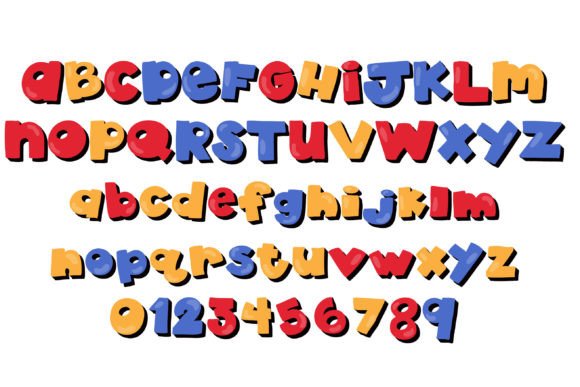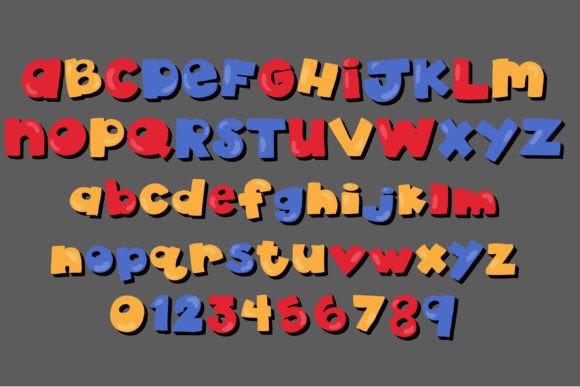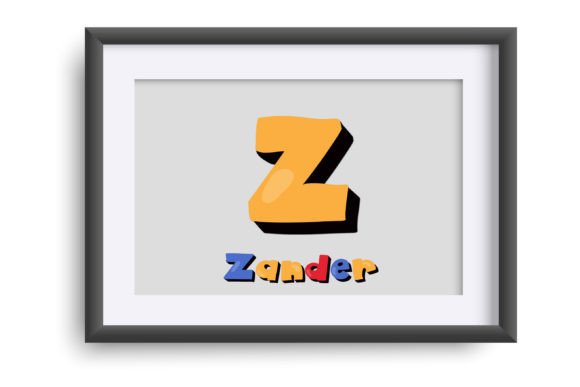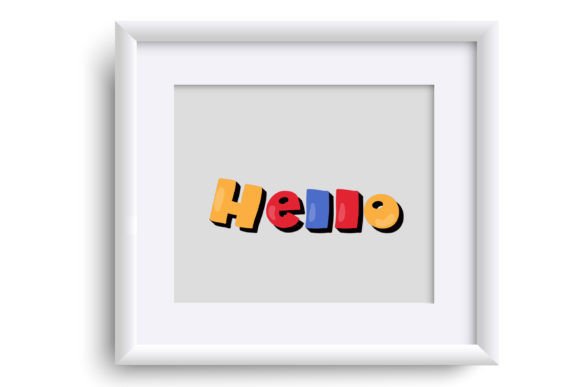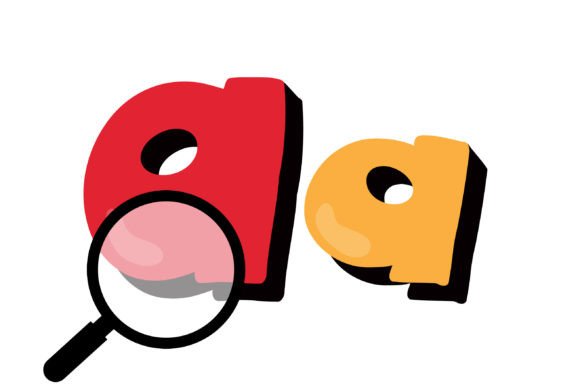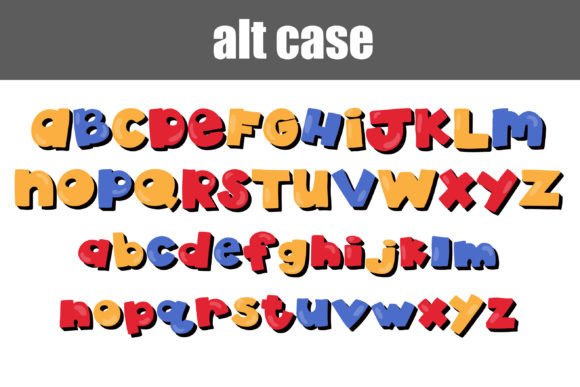
Introducing Bug Giggles Font: A Vibrant and Playful Addition to Your Design Arsenal
Are you tired of using the same old fonts in your designs? Look no further than the Bug Giggles Font, a full-color font that is sure to add a touch of personality to your projects. This fun and playful font features primary colored lettering with heavy black shadows, making it perfect for designers and crafters looking to add a pop of color to their work.
What Makes Bug Giggles Font So Unique?
One of the standout features of the Bug Giggles Font is its use of primary colored lettering with heavy black shadows. This gives the font a bold and eye-catching look that is sure to grab attention. But that’s not all – this font also comes with a range of features that make it easy to use and customize.
For example, you can access the front and back bus glyphs by typing the greater than and less than glyphs. This allows you to add an extra level of detail to your designs and create unique and interesting effects. Additionally, each letter has an alt version in a different color that you can access through your system character map. This gives you even more flexibility and creative freedom when working with the font.
The Benefits of Full-Color SVG Fonts
Full-color SVG fonts, like the Bug Giggles Font, offer a range of benefits for designers and crafters. For one, they provide a level of detail and realism that is hard to achieve with traditional fonts. This makes them perfect for projects where you want to add a touch of personality and whimsy.
Additionally, full-color SVG fonts are incredibly versatile. They can be used for a wide range of projects, from crafting and scrapbooking to graphic design and digital art. And because they come in a range of colors, you can easily match them to your brand or project’s color scheme.
The Bug Giggles Font is perfect for designers and crafters looking to add a touch of personality to their projects. Whether you’re working on a graphic design project, creating handmade cards or scrapbook pages, or designing digital art, this font is sure to inspire.
With its bold and eye-catching design, the Bug Giggles Font is sure to grab attention and add a level of interest to your projects. And because it’s so easy to use and customize, you can focus on the creative aspects of your project, rather than getting bogged down in technical details.
In conclusion, the Bug Giggles Font is a vibrant and playful addition to any design arsenal. With its primary colored lettering, heavy black shadows, and range of customization options, this font is sure to add a touch of personality to your projects.
Whether you’re a designer, crafter, or digital artist, the Bug Giggles Font is a great choice for anyone looking to add a level of interest and whimsy to their work. So why not give it a try and see the difference it can make in your designs?
With its ease of use, versatility, and range of benefits, the Bug Giggles Font is sure to become a favorite in your design toolkit. So go ahead, get creative, and see what amazing projects you can come up with using this fun and playful font!